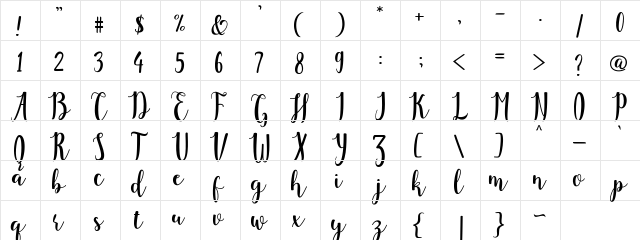
Agustina Regular
| Foundry | Kurniadi Saputra |
| Designer | Kurniadi Saputra |
Design Context for Agustina Typeface
Agustina is a composed and adaptable typeface that performs quietly and consistently across a wide range of design contexts.